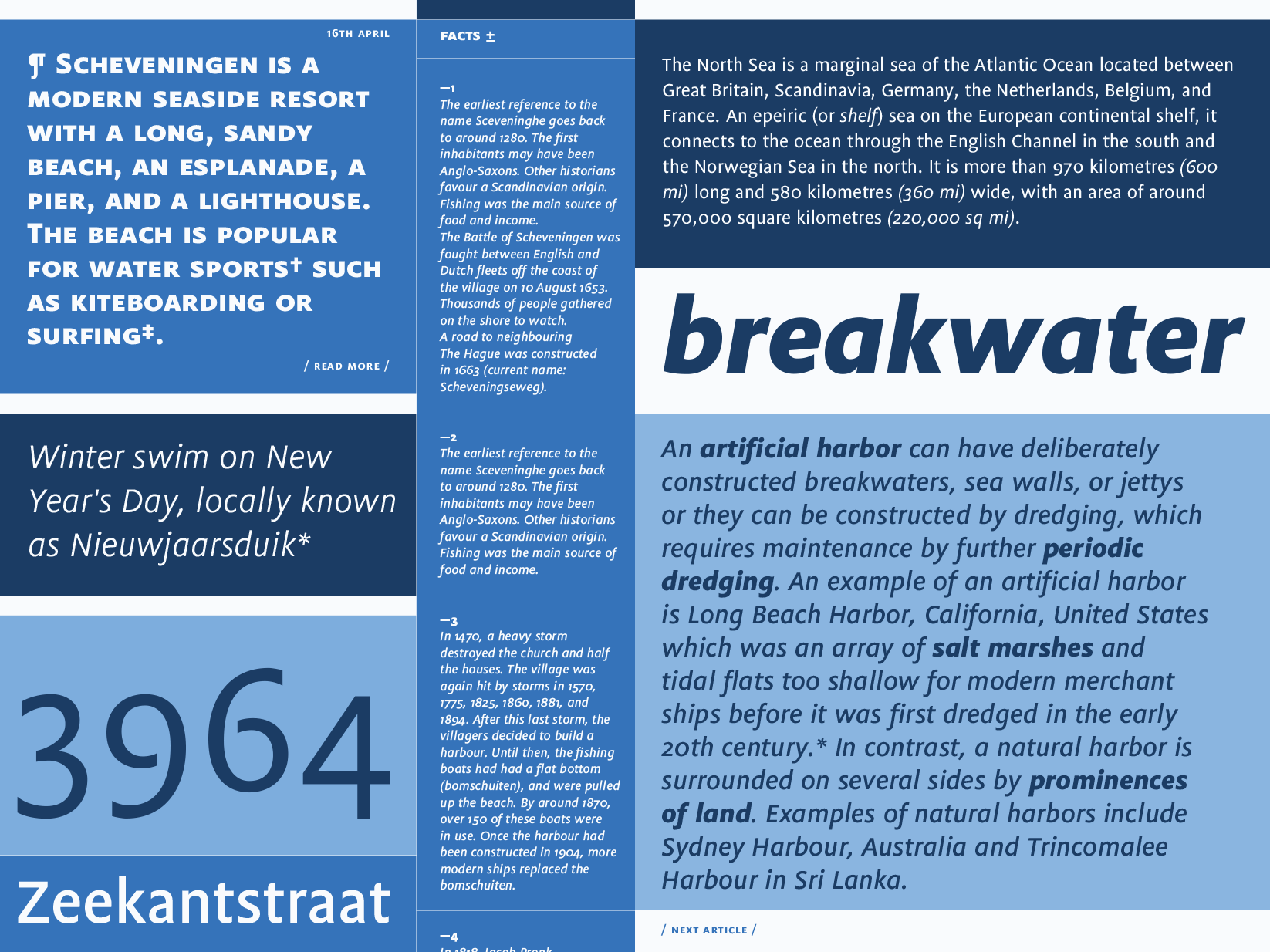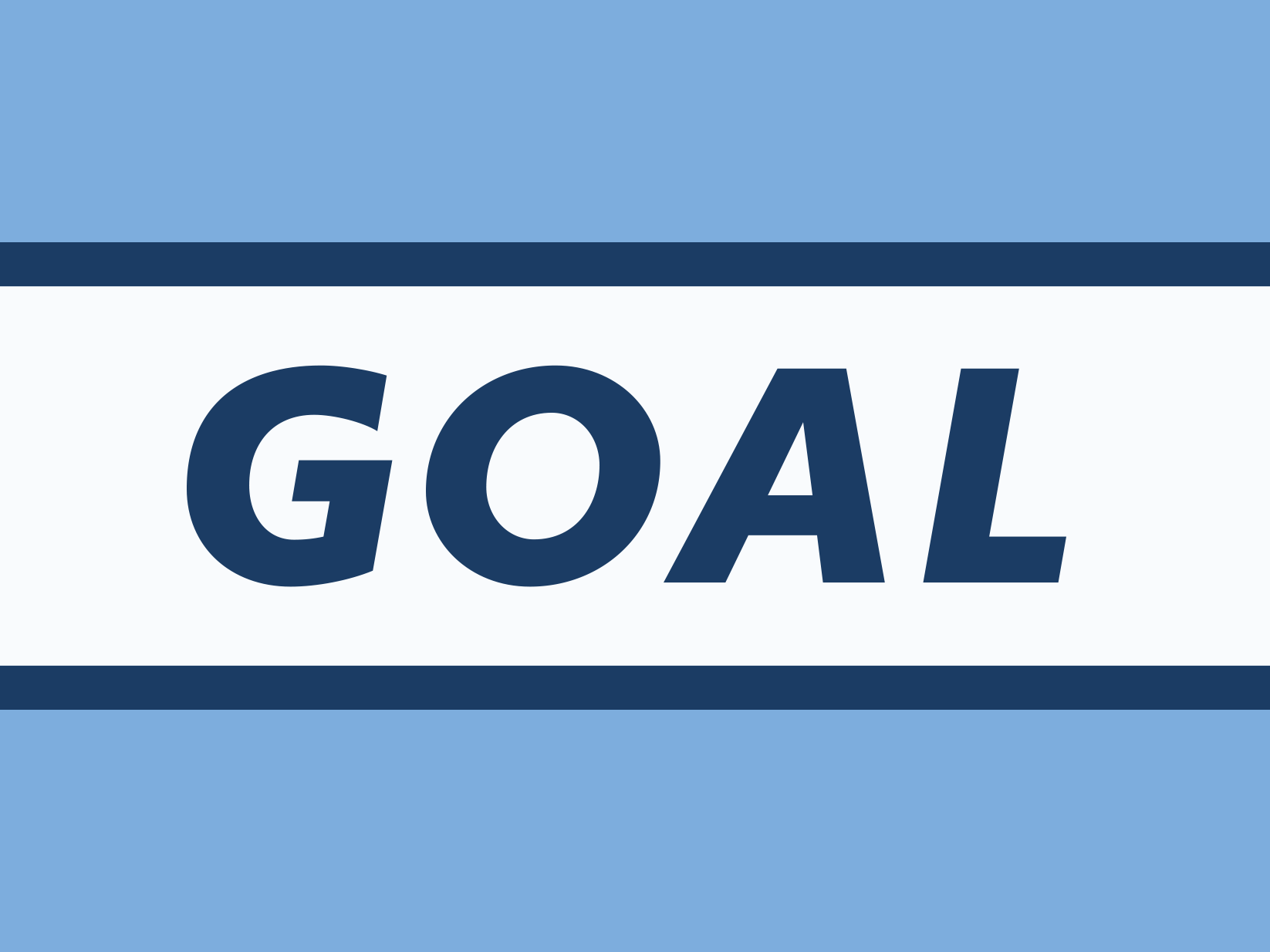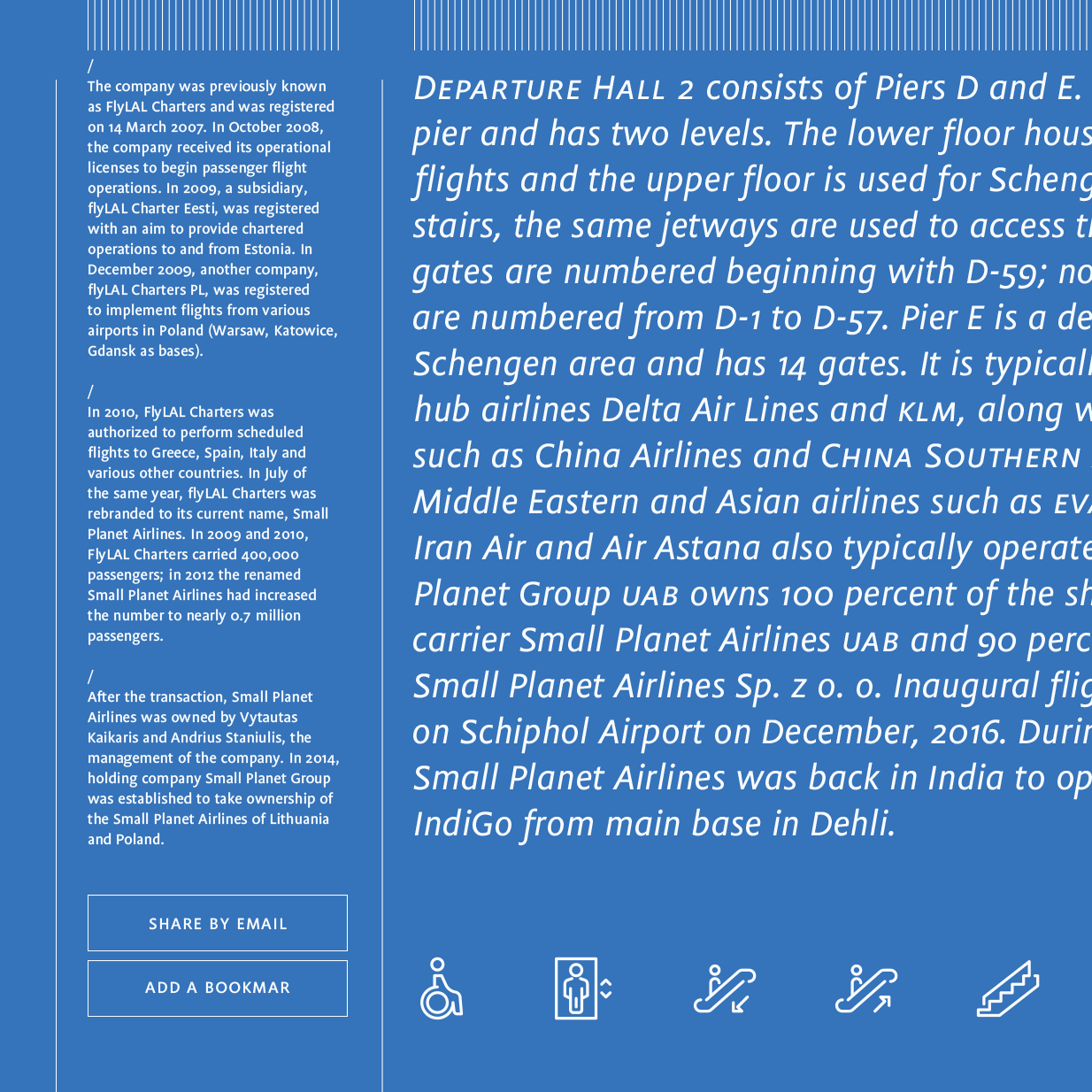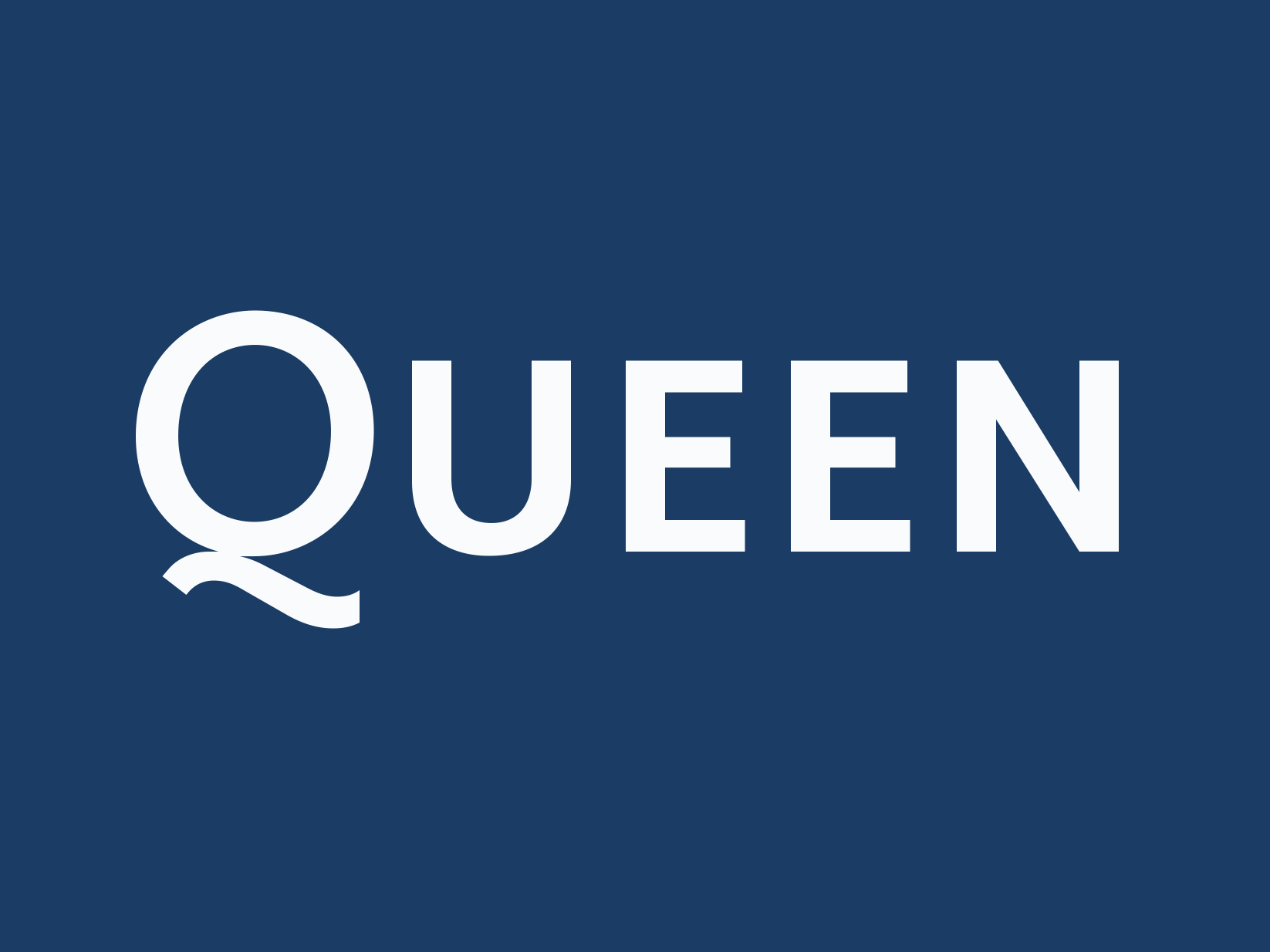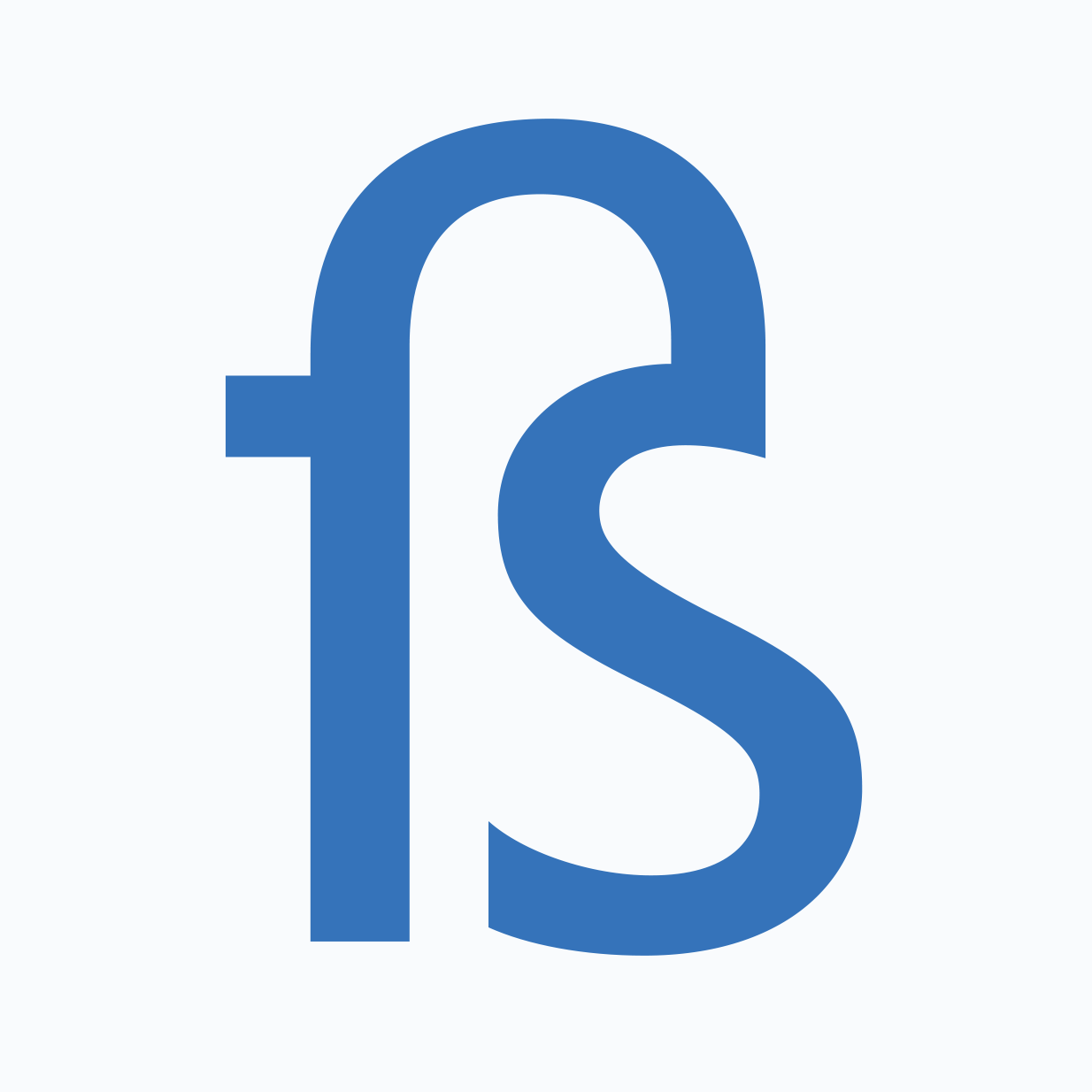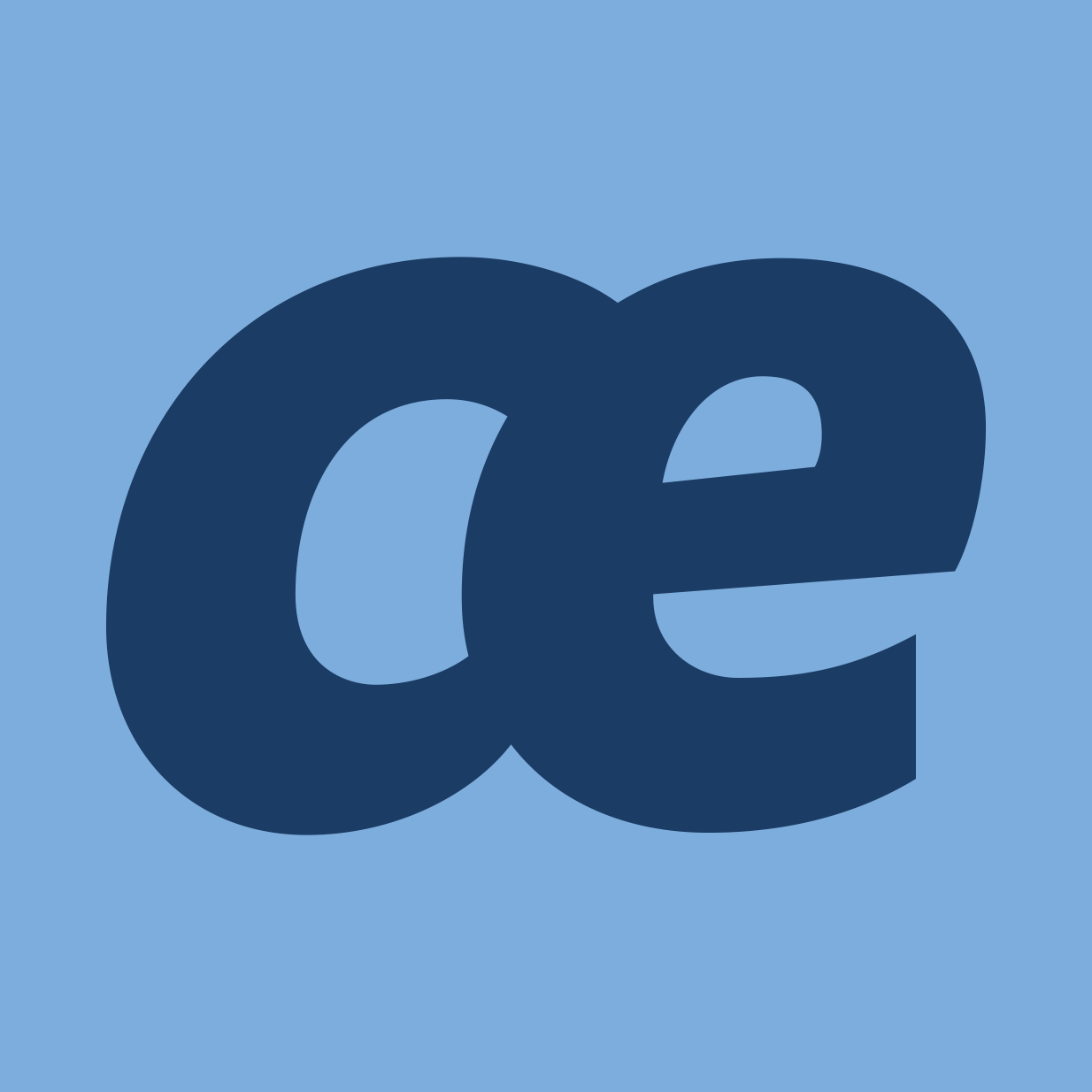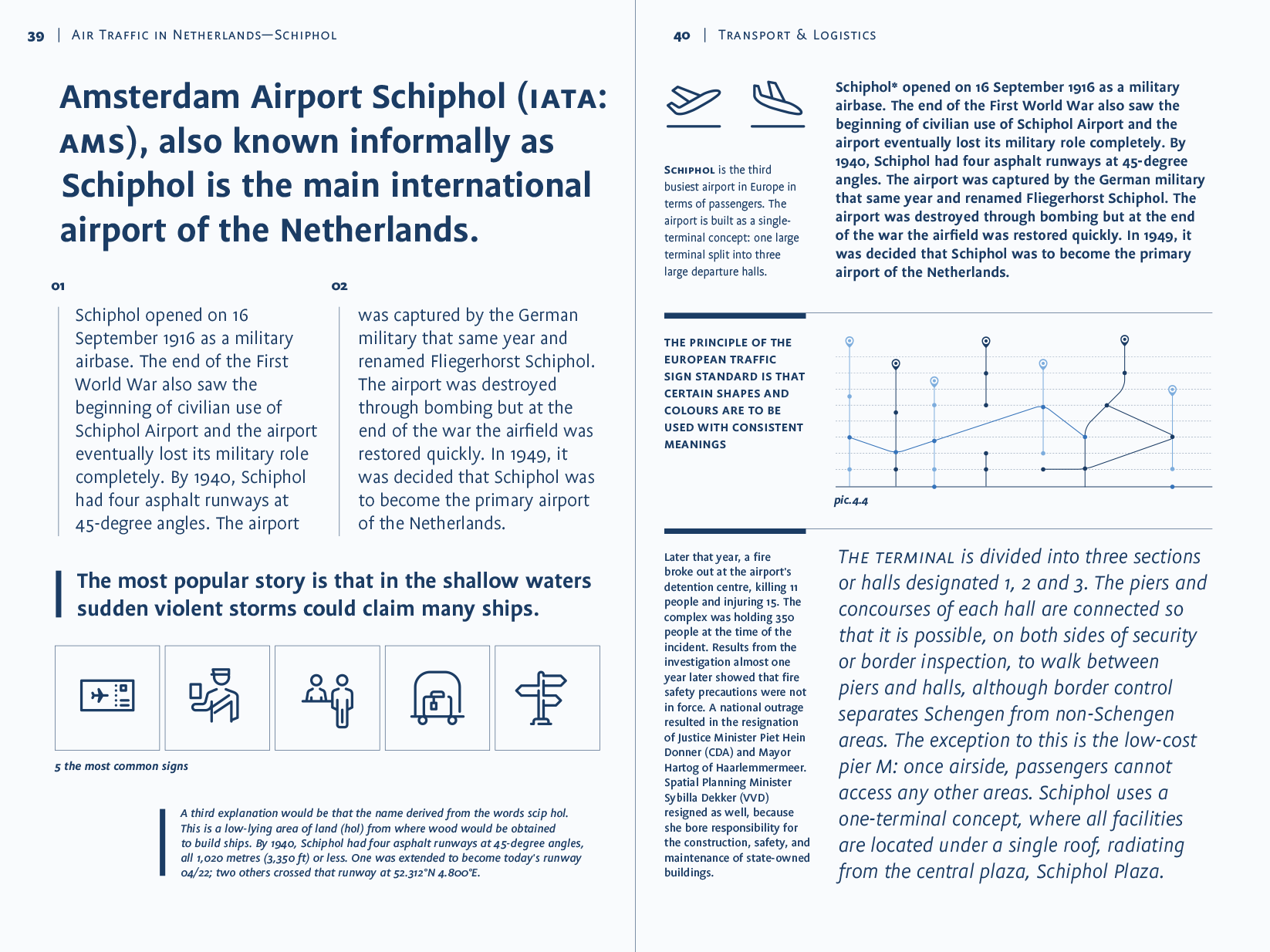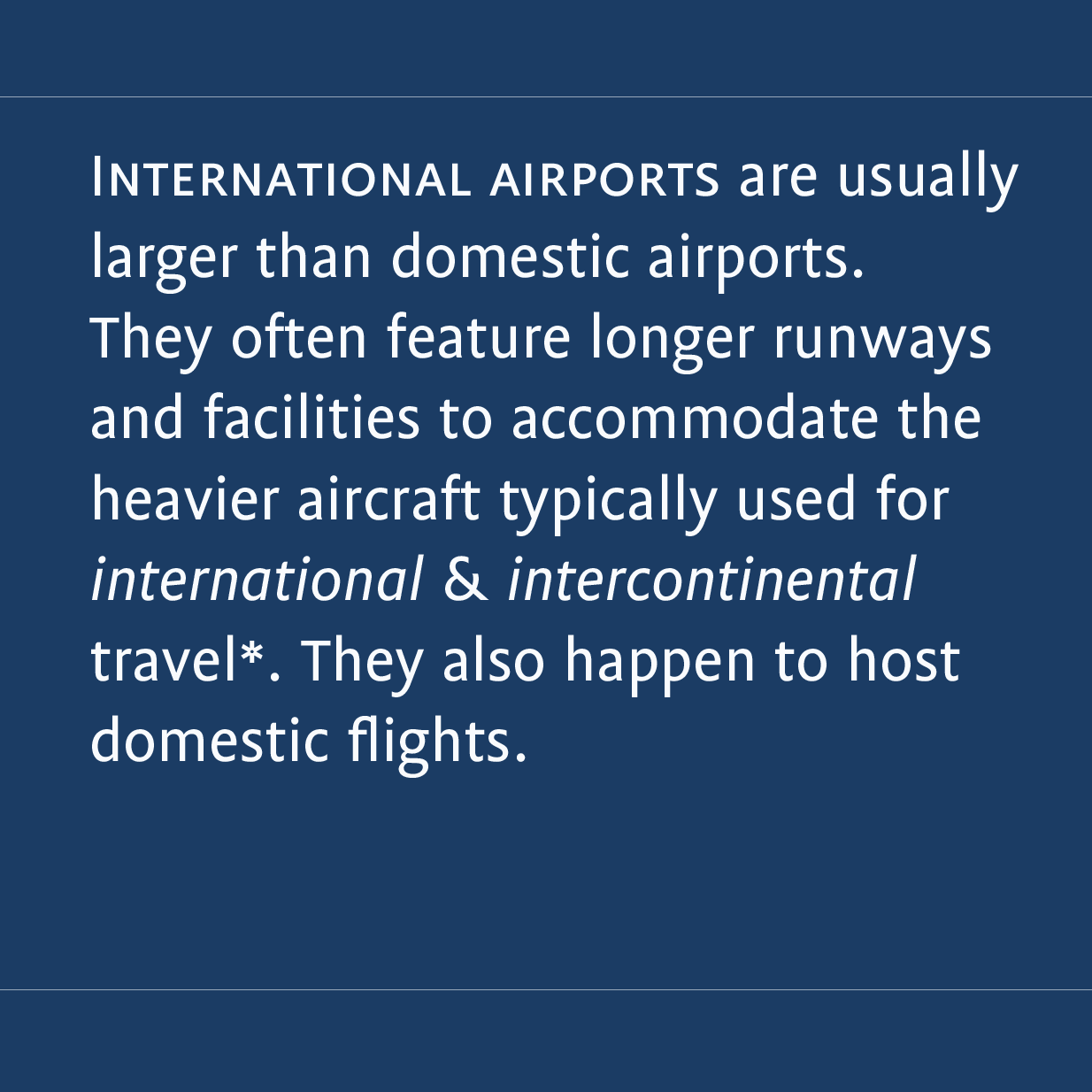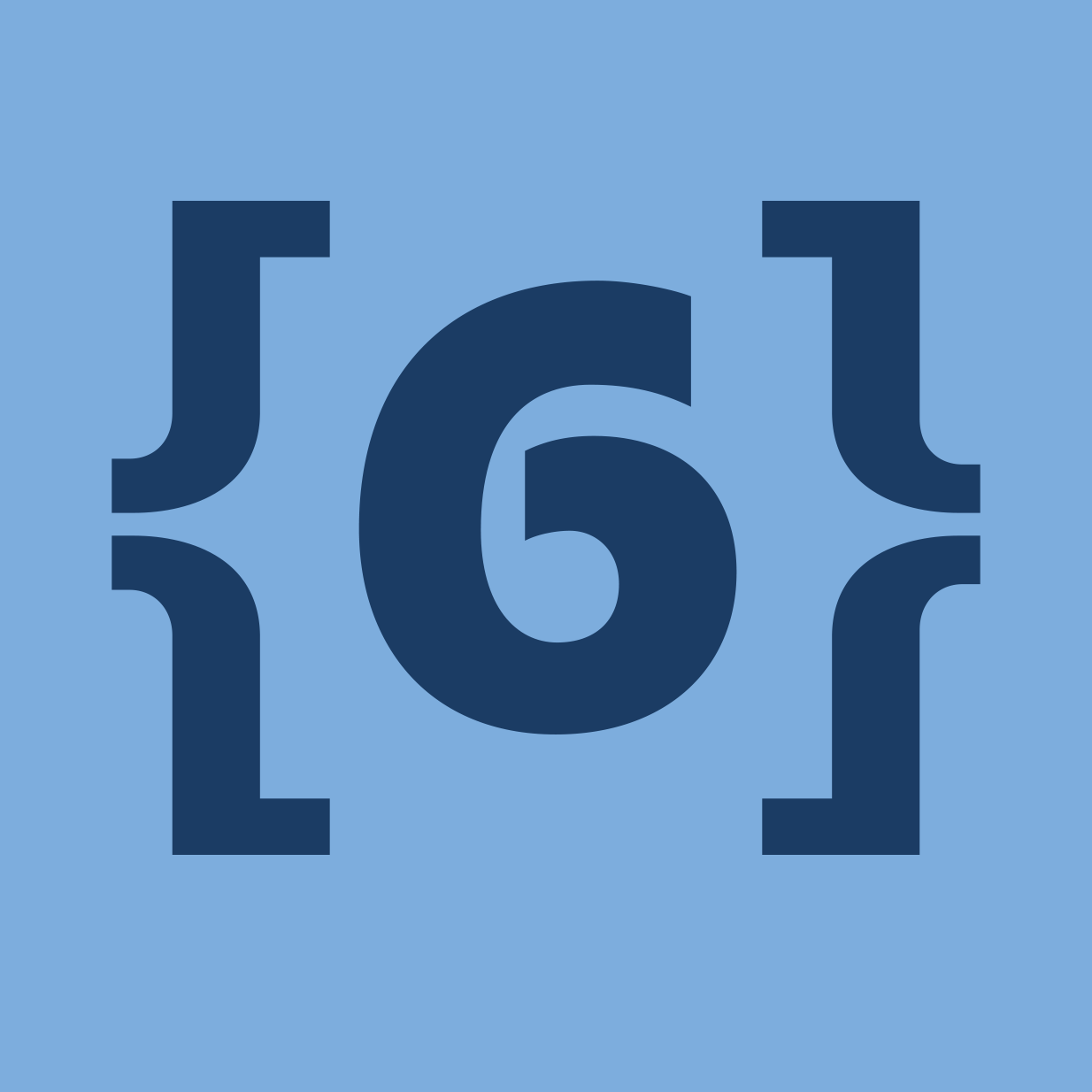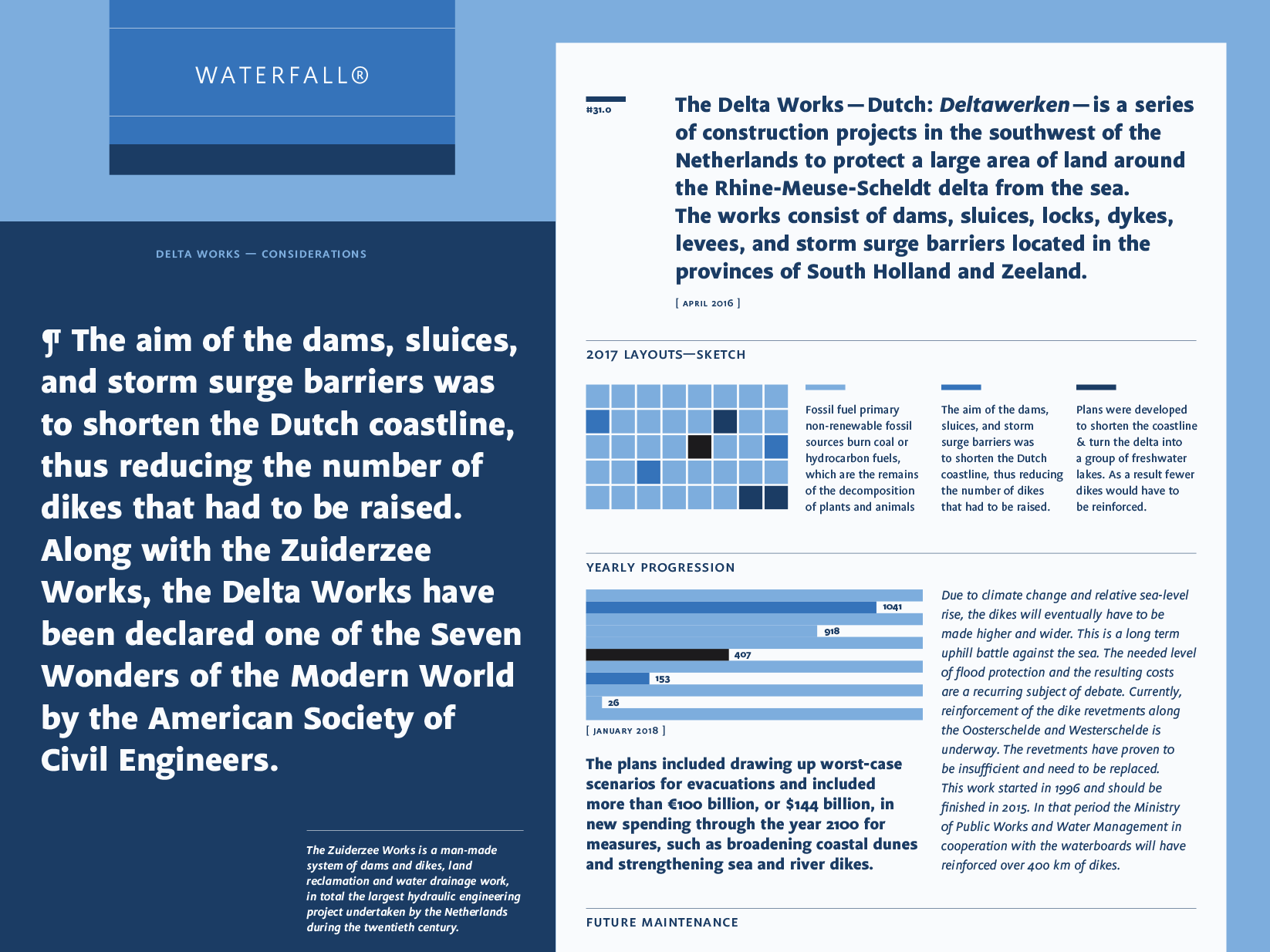
Flex
Flex started its life in 1999 as an attempt to develop a true multi-purpose typeface. Paul van der Laan wanted the family to be comprehensive and adaptable, with open letterforms to make it highly readable in small sizes. True italics, small caps, oldstyle figures and many ligatures allow for refined typography.
By giving Flex economic, space-saving proportion, it cuts an equally fine dash in larger sizes or bold headlines. The five finely attuned weights make Flex well-suited for signage and wayfinding systems where positive as well as negative text applications are common.
Paul van der Laan